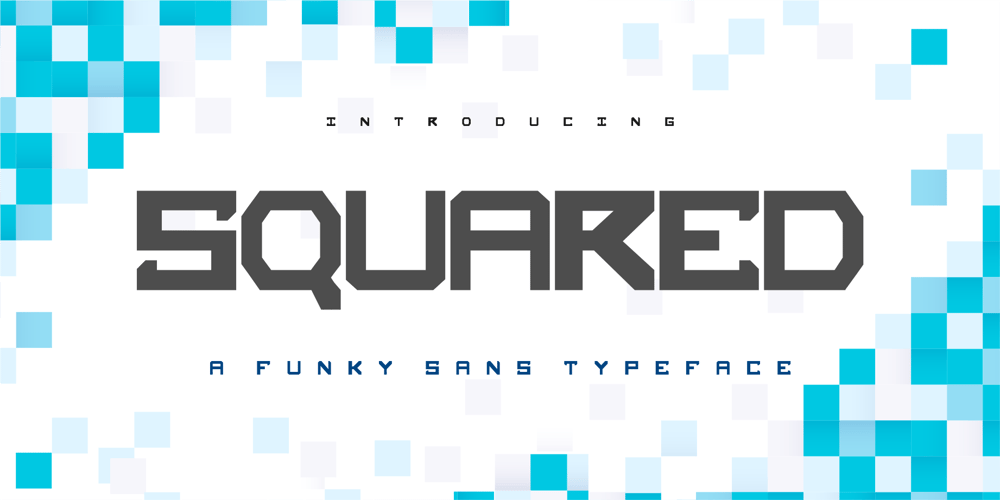
Squared Font Family was designed by David Shopekan and published by Krown Creative Factory. Squared contains 1 styles and family package options. Squared is a Geometric Display typeface with a box like sharped edge feel to pass the message of being Trendy but also candid in sending the desired message. It can be used to create a range of design projects like posters, advertising and marketing flyers and even to printed items. It just requires you to use your imaginative strength and your design projects will look more Bold and trendy and even better pass your message.With this typeface you can create a party poster, movie flyer, advertising and marketing posters, it can also be used on branding items, Advert Posters, book covers, music cover arts, or any purpose of your choice to make your designs look Sharp and a bit trendy, feel free to play with this typeface.